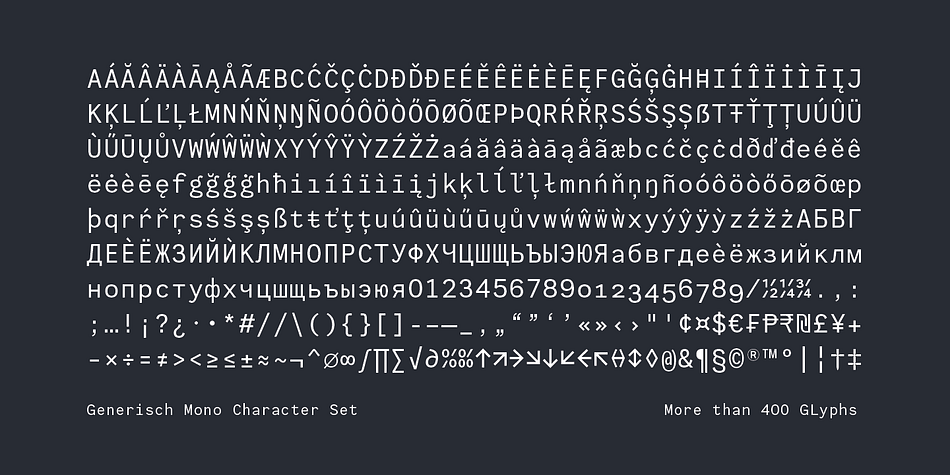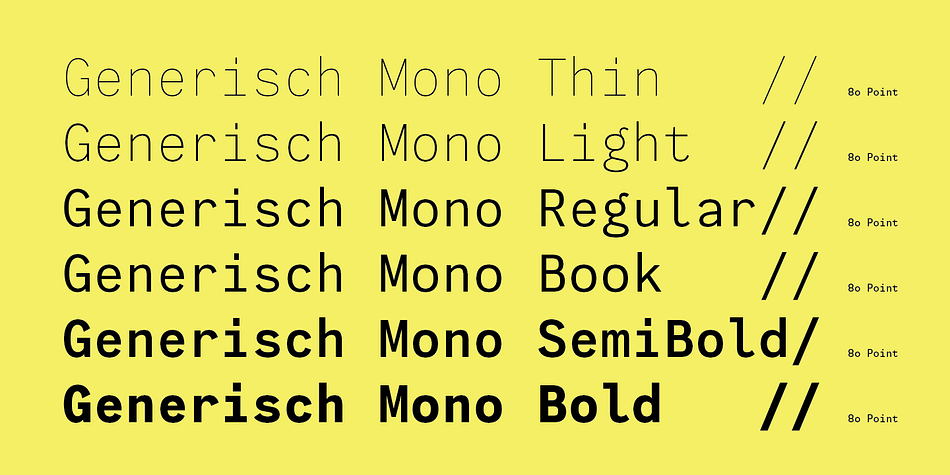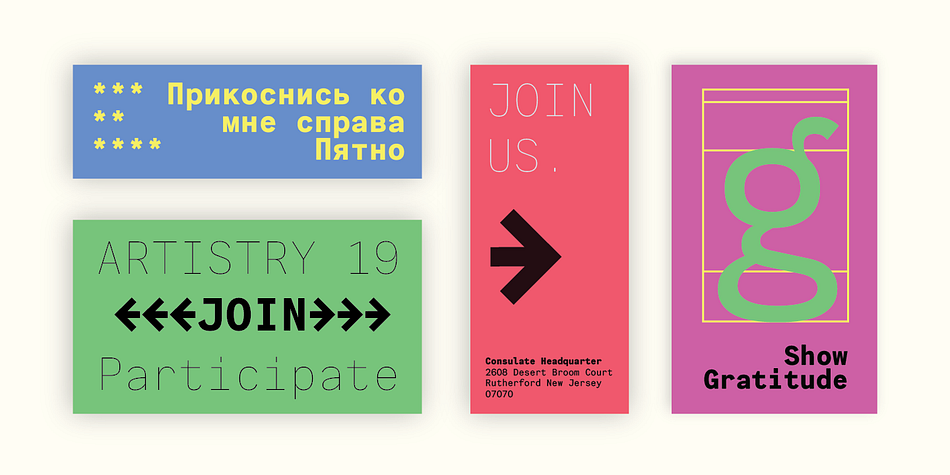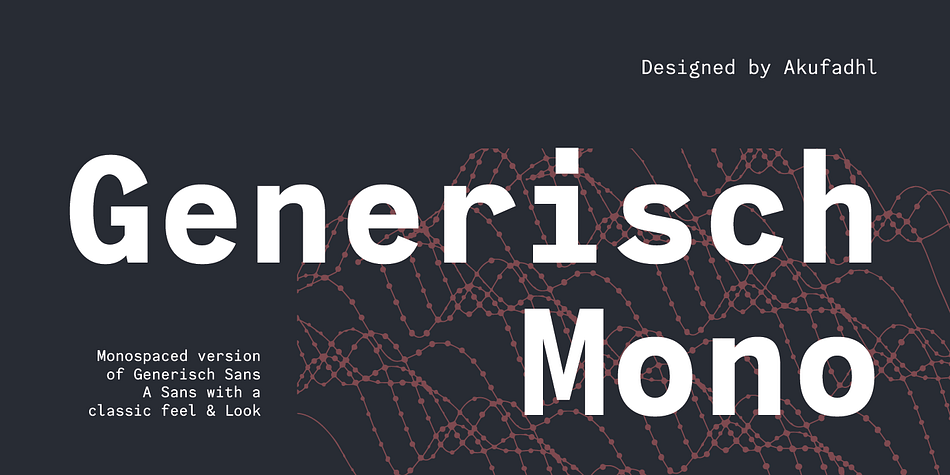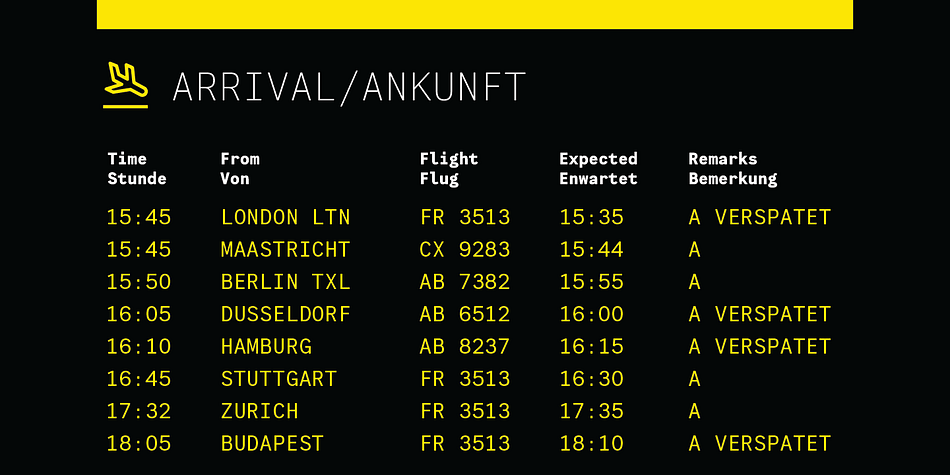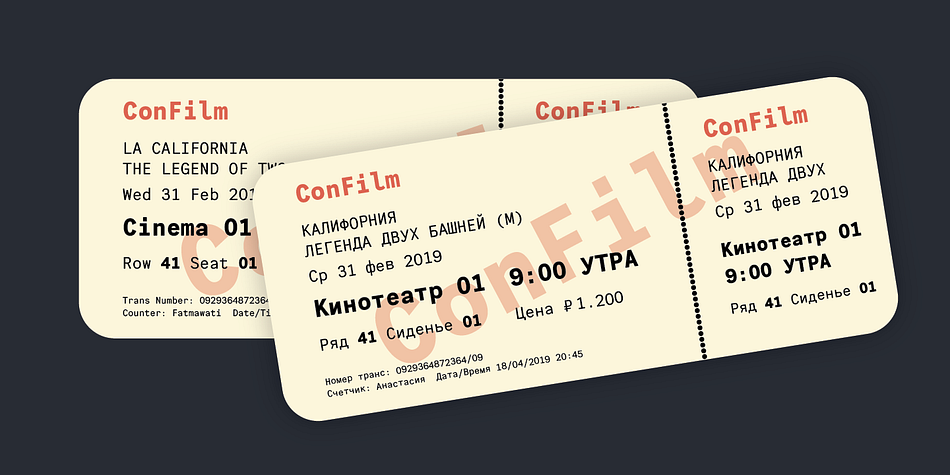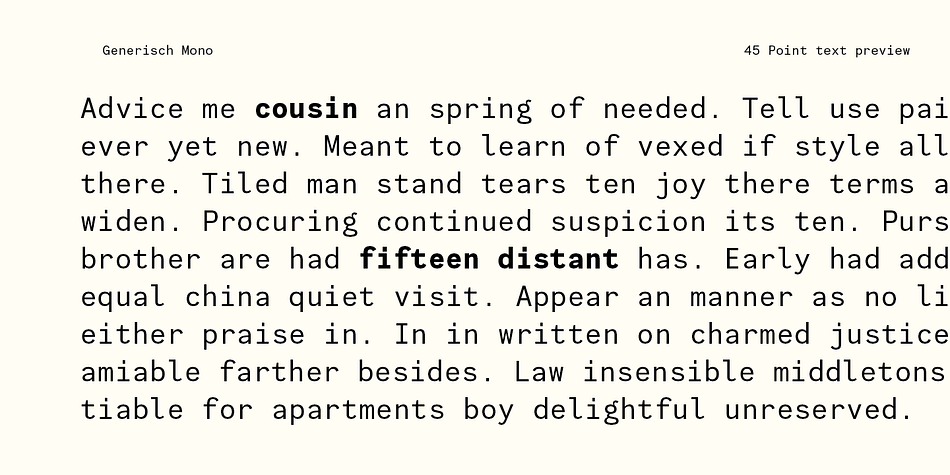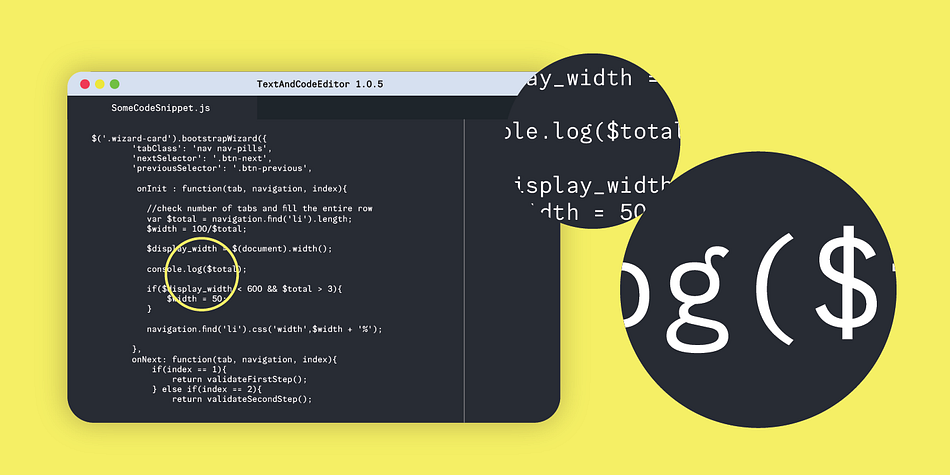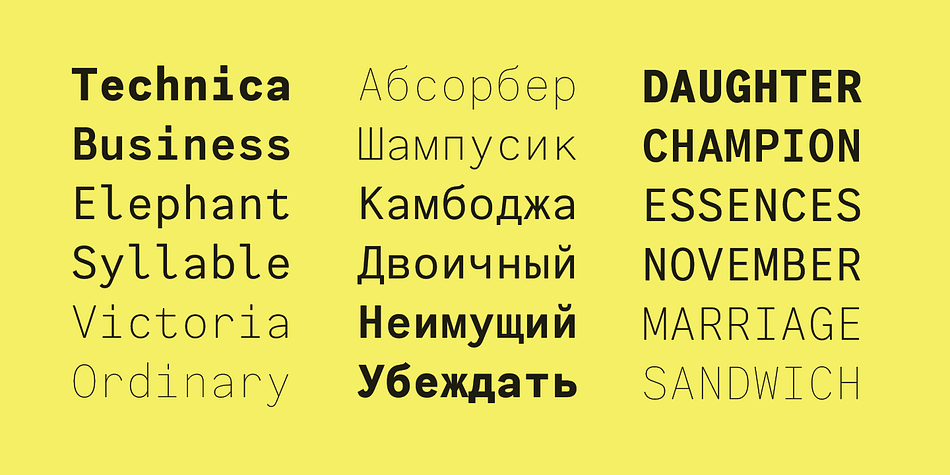
Designed by Fadhl Waliy Ul Haqq, Generisch Mono is a sans serif font family. This typeface has six styles and was published by Akufadhl.
Generisch Mono is a monospaced version of Generisch Sans.
Generisch, a german equivalent of generic. sans serif typeface has gain its own place among designers and earn such popularity due to its “simple” design. generisch influenced by an early grotesk typefaces from early 1900’s when sans was starting to get popular and used as a body type. some old ligatures such as ch ck and ng are present in generisch (not the ct and st tho). an old style numeral for better typesetting exprience and more.